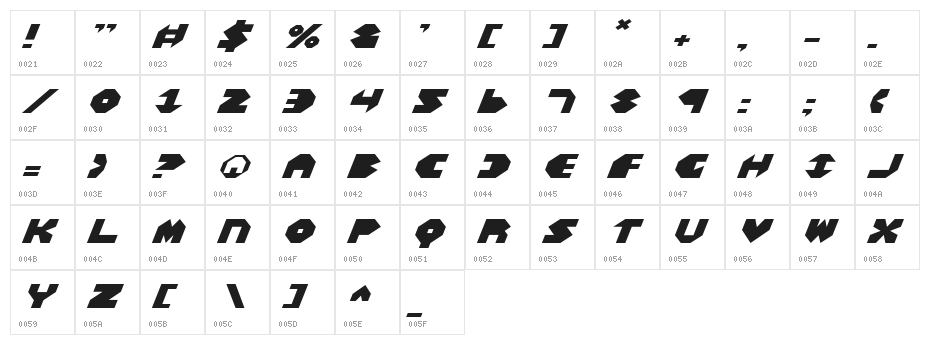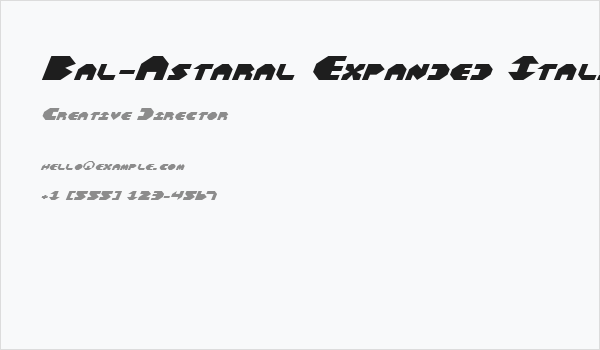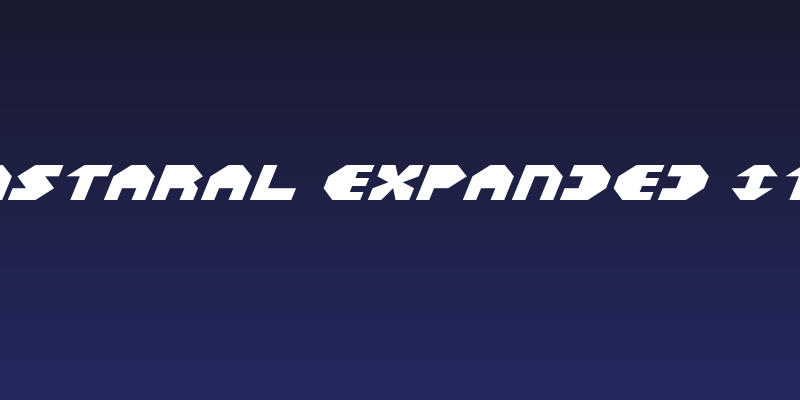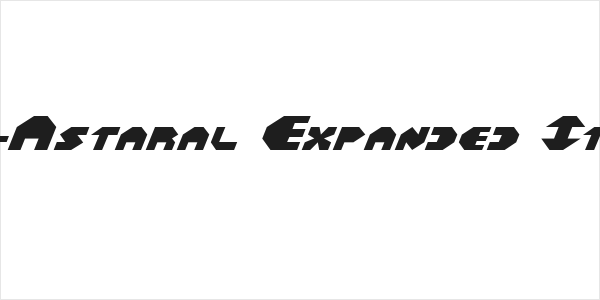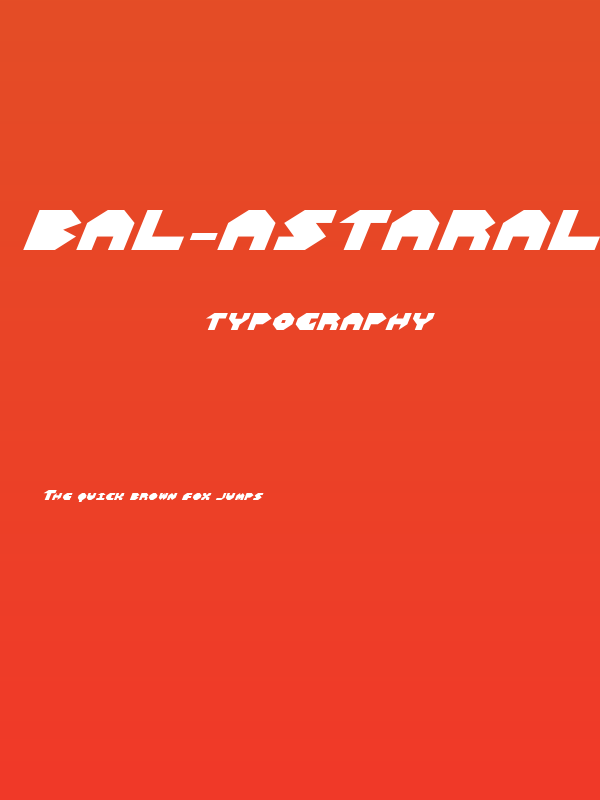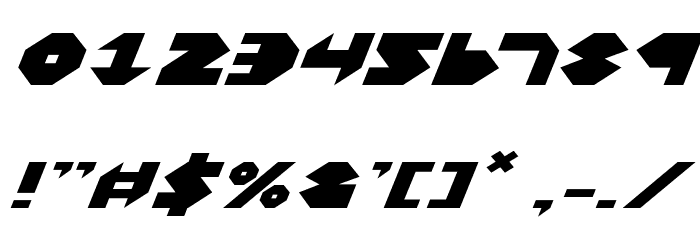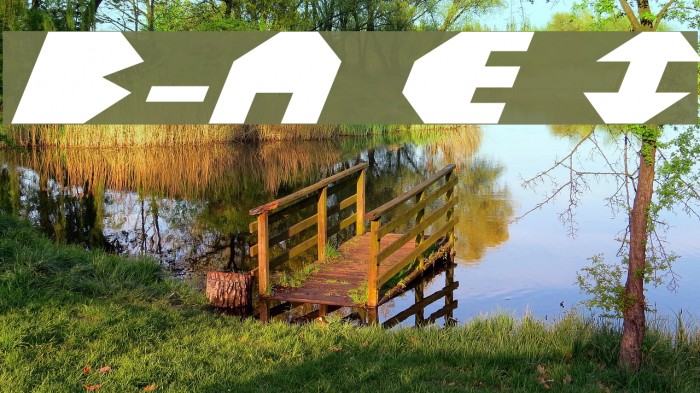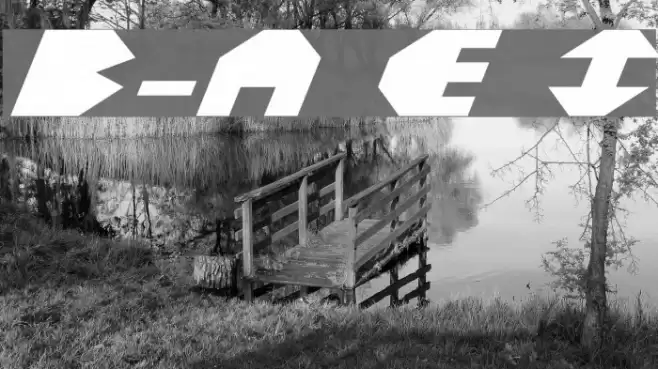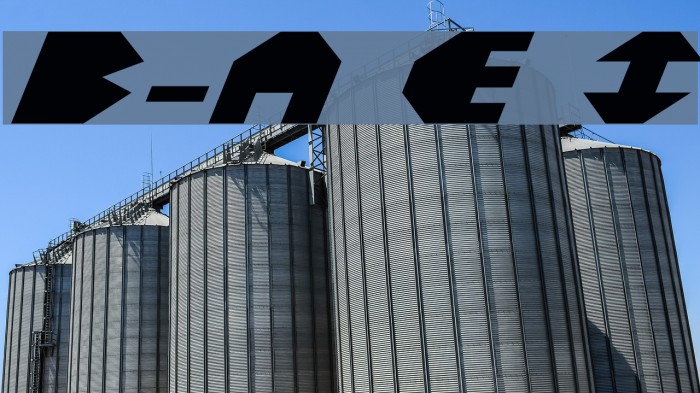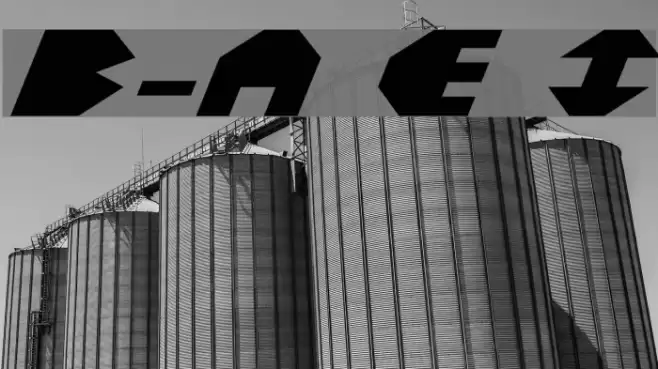
Bal-Astaral Expanded Italic Font
Bal-Astaral Expanded Italic Description
This font features a bold and dynamic design with a distinctly angular and geometric style. The characters are sharply cut with a futuristic flair, making them stand out with their unique and edgy appearance. The italic slant adds a sense of motion and speed, enhancing its modern aesthetic. The expanded width of the characters provides a strong presence, ideal for making impactful statements. The font's high contrast in stroke thickness further accentuates its boldness, ensuring visibility and readability even from a distance. The overall design is both innovative and striking, suitable for projects that require a contemporary and assertive look.